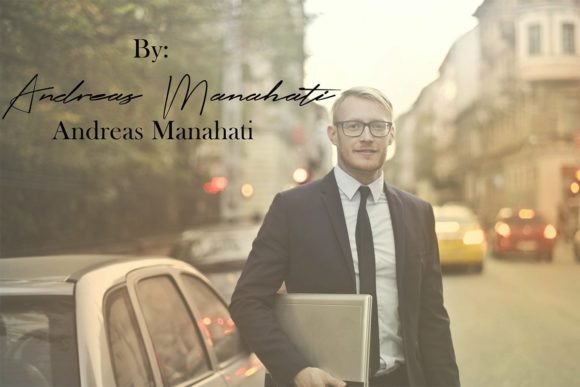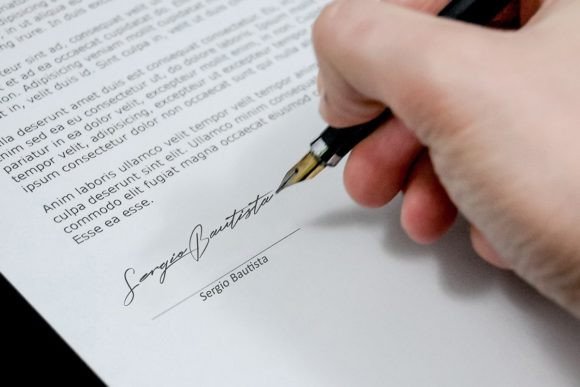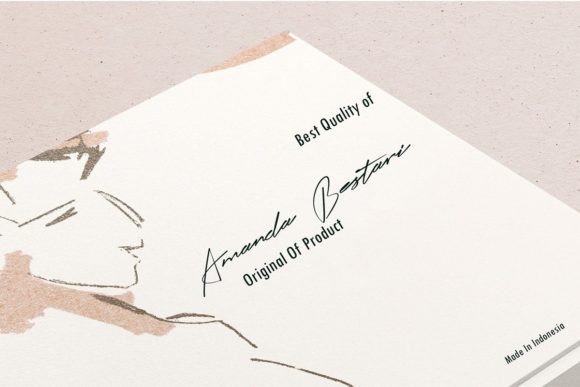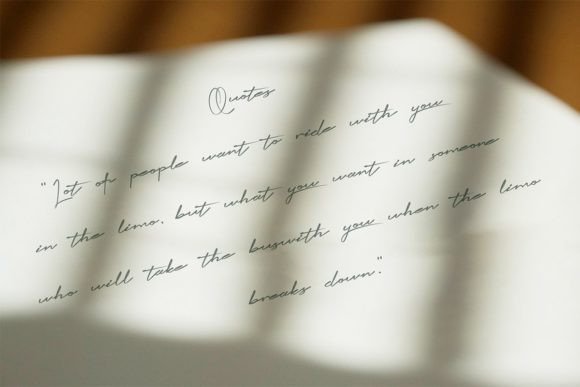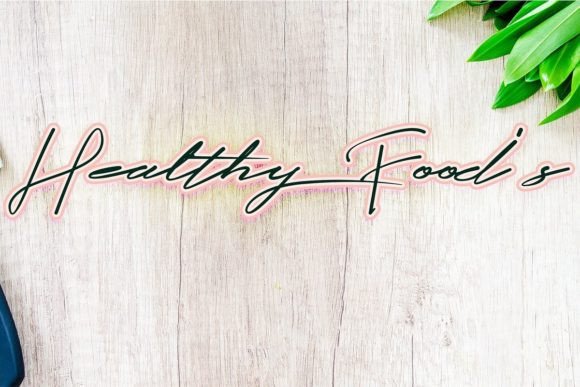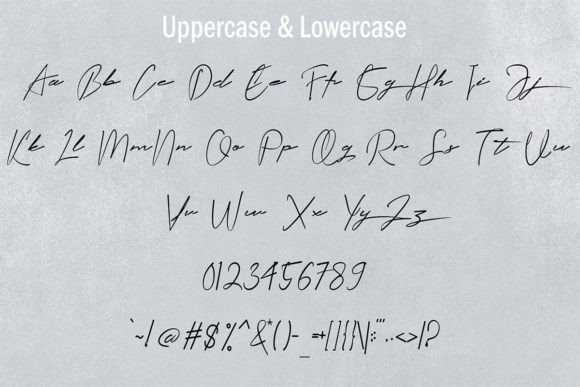
Introduction to Ramayana Font Font
Fonts play a crucial role in design, and the Ramayana Font font is a typeface that brings both character and versatility to any project. Whether you’re working on a branding project, a website, or a print design, the Ramayana Font font offers a unique style that can elevate your work.
Ramayana is a stylish, incredibly elegant, and friendly handwritten font.
This font was particularly crafted for those who need a beautiful and refreshing look to their designs This font is PUA encoded which means you can access all of the amazing glyphs and ligatures with ease.
Key Features of Ramayana Font Font
Why Choose Ramayana Font Font?
The Ramayana Font font is more than just a typeface – it’s a design tool that helps you communicate your message with style and clarity. Its unique character set and versatile design make it suitable for a wide range of applications, from elegant invitations to bold headlines.
With its carefully crafted letterforms and balanced proportions, the Ramayana Font font ensures readability and visual appeal across all mediums.
What makes Ramayana Font font special?
The Ramayana Font font stands out with its unique design, exceptional readability, and versatility across various design applications.